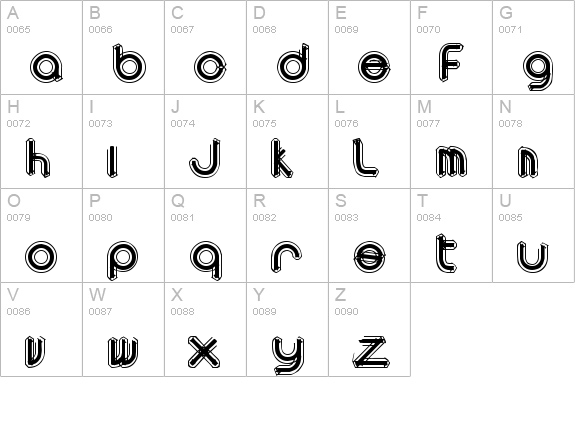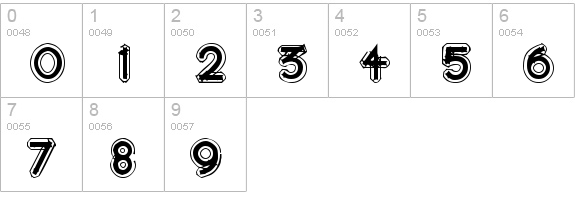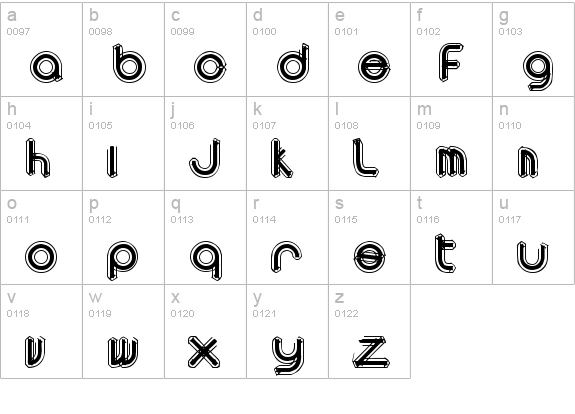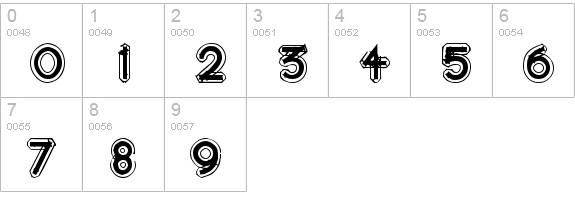
area OUTLINEe Font Details
Introducing OUTLINEe font, a sleek and modern typeface perfect for adding a touch of sophistication to your designs. This unique font features clean outlines and sharp lines that will make your text stand out. Whether you're designing a poster, logo, or website, OUTLINEe font is sure to make a bold statement. What's even better is that this font is completely free to download at FontsMarket.com! That's right, you can enhance your projects with this stylish font without breaking the bank. So why wait? Download OUTLINEe font today and elevate your design game to the next level.